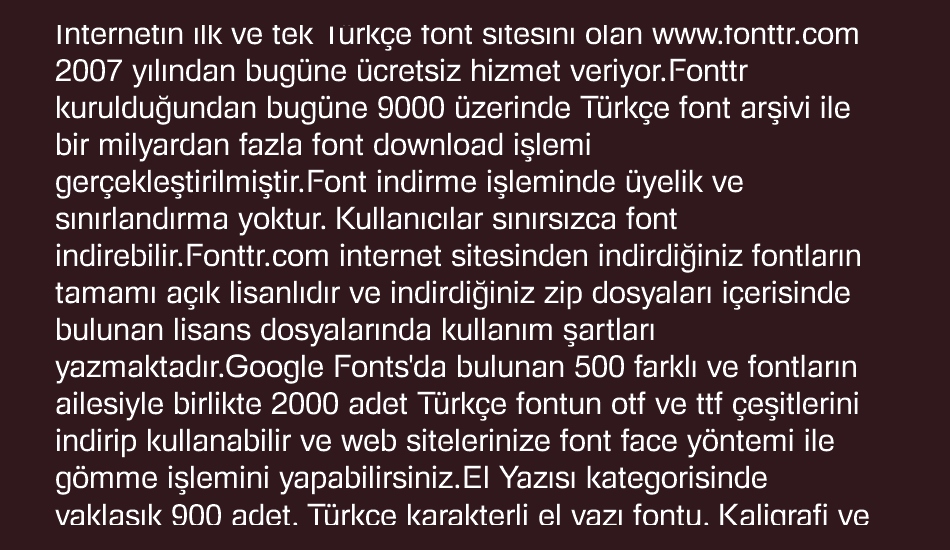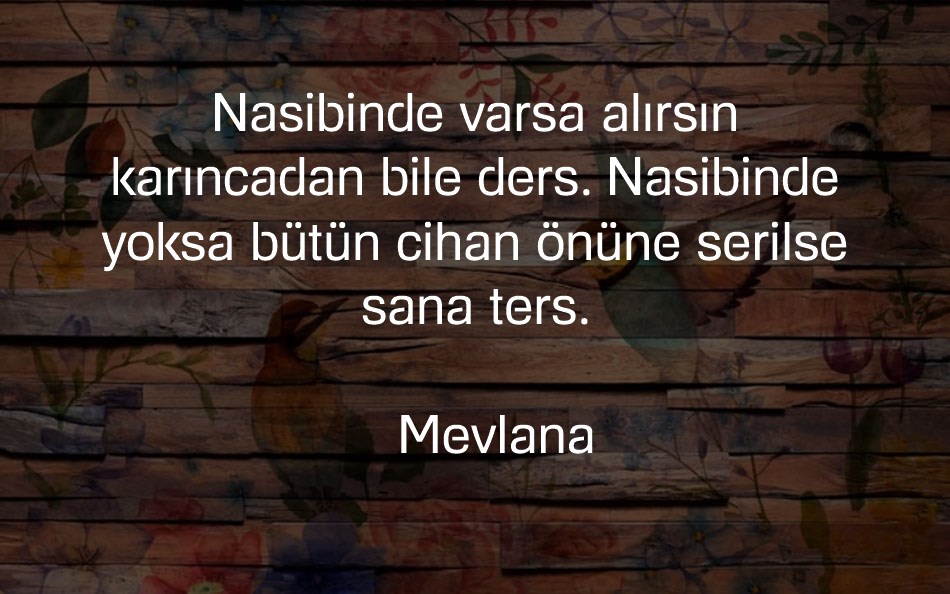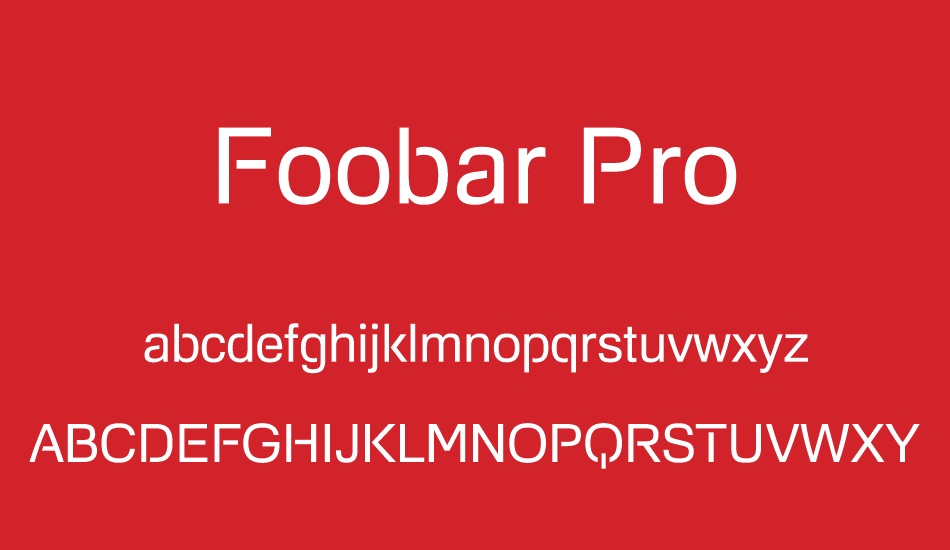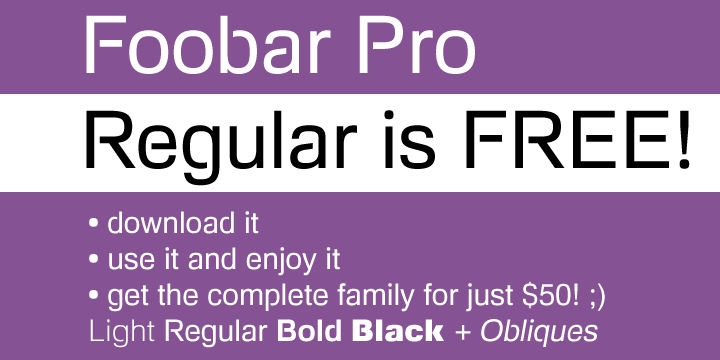
Foobar Pro font
Foobar Pro
Please enjoy the free "Regular" weight of our new 8-face family Foobar Pro. Download it and take it for a spin. Test out the quality of the outlines and the language support - and then go to our site for the rest of the family! ;)
This is the cool and stylish relative to Familiar Pro. Like a cousin. Or perhaps a second cousin twice removed. Because parts of the letters are removed, see...